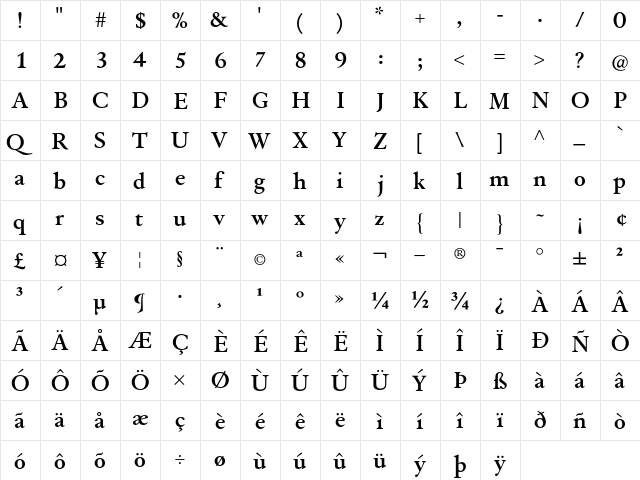
Augereau ExtraBold Regular
| Foundry | Expert Alphabets International, Ltd |
| Designer | Expert Alphabets International, Ltd |
Design Context for Augereau ExtraBold Typeface
Augereau ExtraBold is a composed and adaptable typeface that performs quietly and consistently across a wide range of design contexts. Its bold stroke weight gives it real presence on the page.